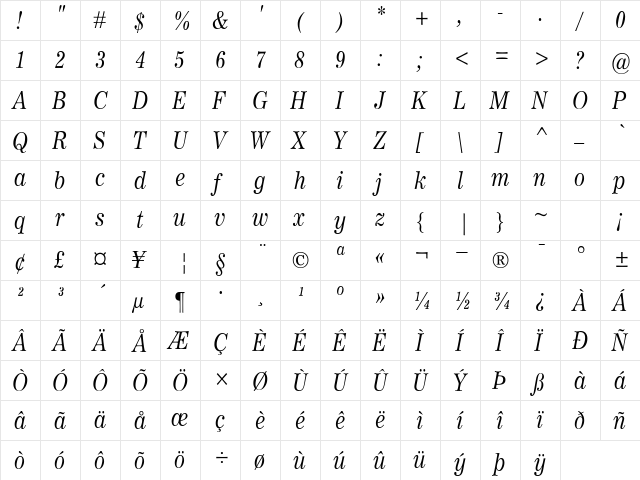
WorldwideHeadline Italic
Design Context for WorldwideHeadline Typeface
WorldwideHeadline is a composed and adaptable typeface that performs quietly and consistently across a wide range of design contexts. The slanted form adds forward momentum and visual energy.
Pro Tip: Use WorldwideHeadline for emphasis, pull quotes, and subheadings where its slanted energy can add rhythm to the layout.